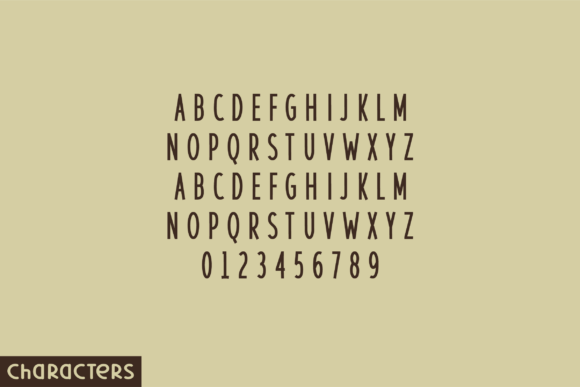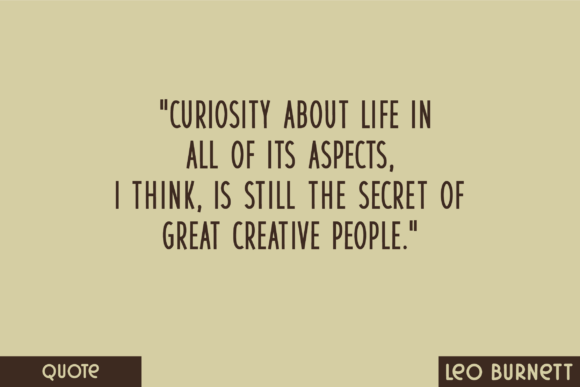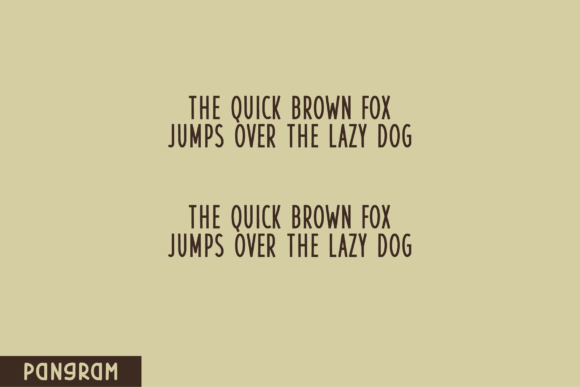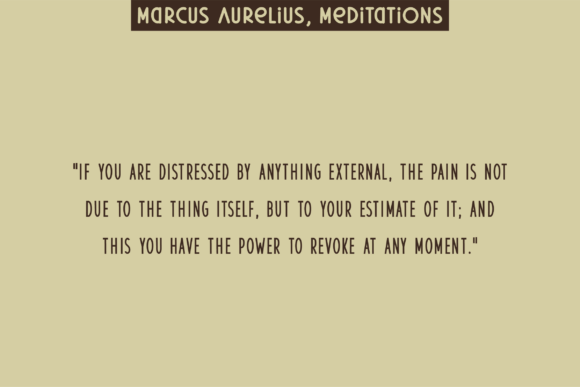
Introduction to Apelleia Font
Apelleia is a natural handwritten font without changing a single node in each character’s indentation, this makes this font very interesting and unique.
Key Features of Apelleia Font